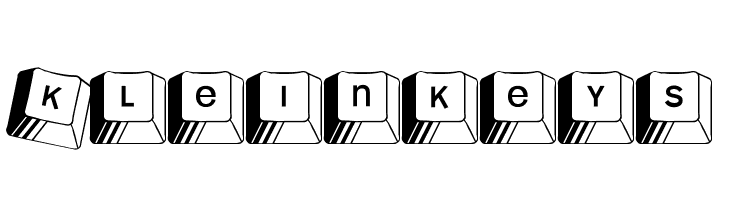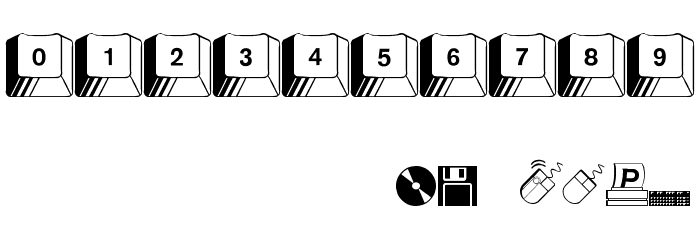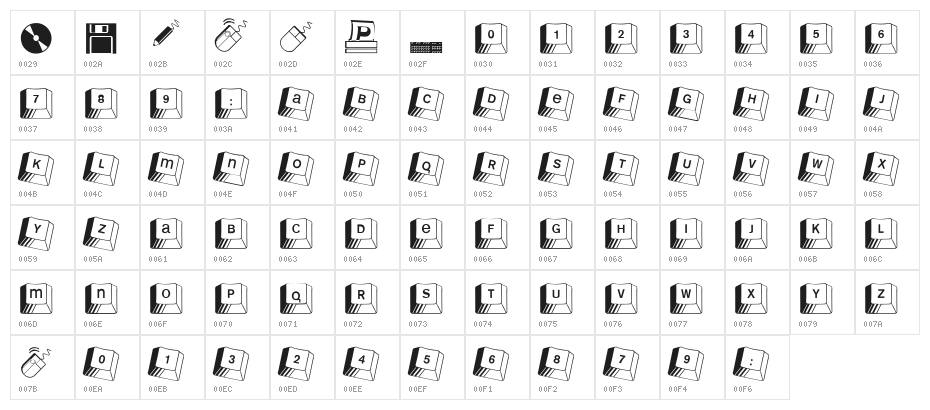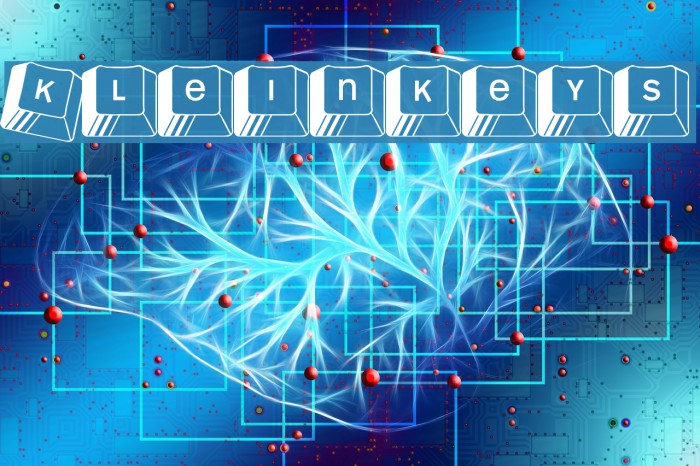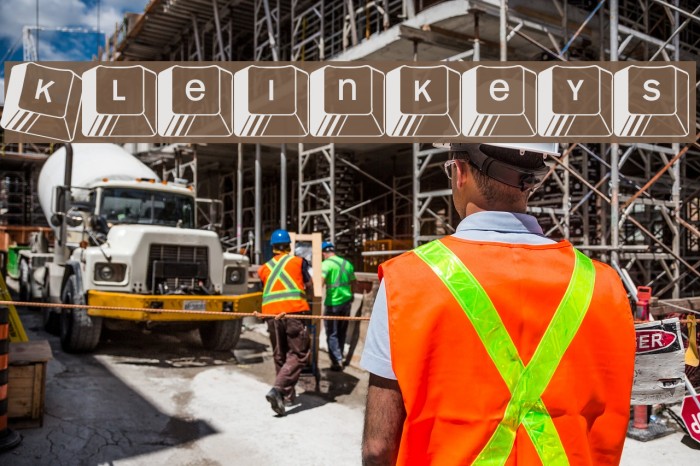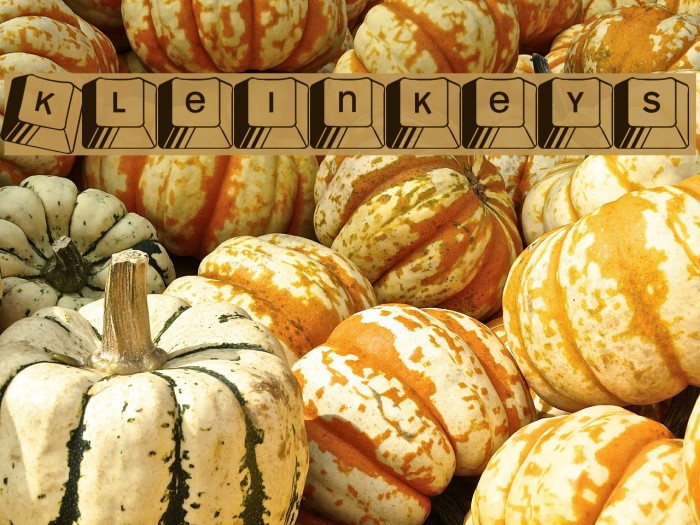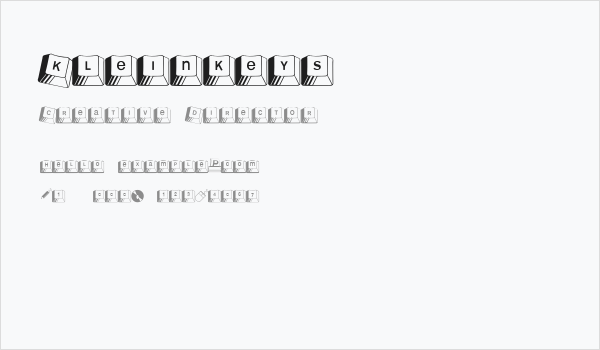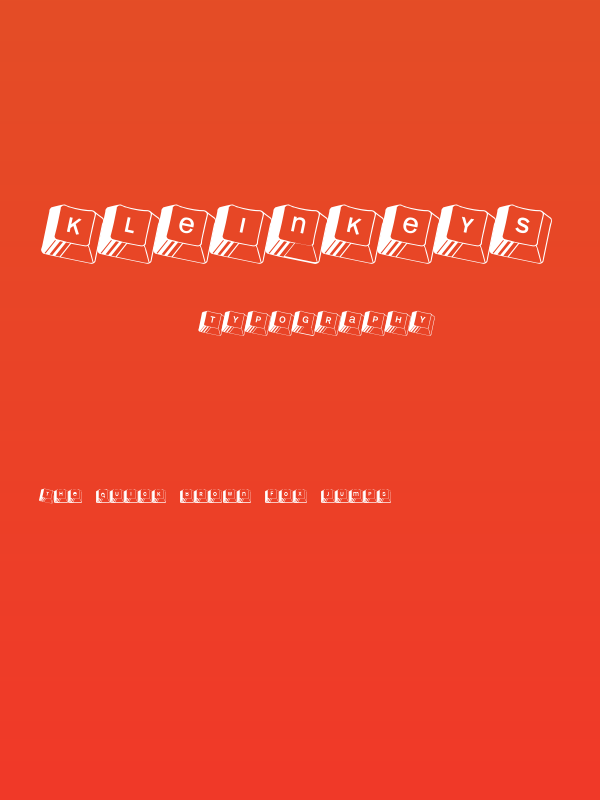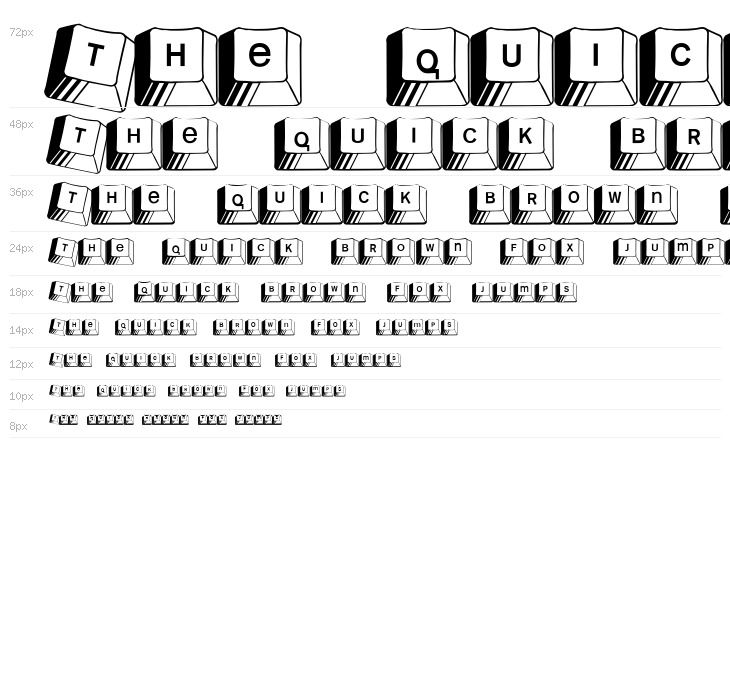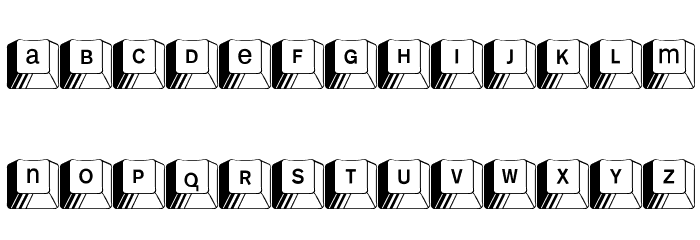
Kleinkeys Font
Kleinkeys Description
This font features a unique and playful design where each character is styled to resemble a three-dimensional computer key. The letters and numbers are depicted on the top face of each key, with a shadowed effect that gives a sense of depth and dimension. The characters are bold and clear, making them easily readable despite the decorative style. The font includes both uppercase and lowercase letters, numbers, and a selection of special characters. The overall appearance is reminiscent of vintage computer keyboards, adding a nostalgic and tech-inspired touch to any project.
Use CaseLogos, Posters, Themed Events
Proposed ProjectsIdeal for tech-themed designs, retro computer games, educational materials, and playful branding projects.